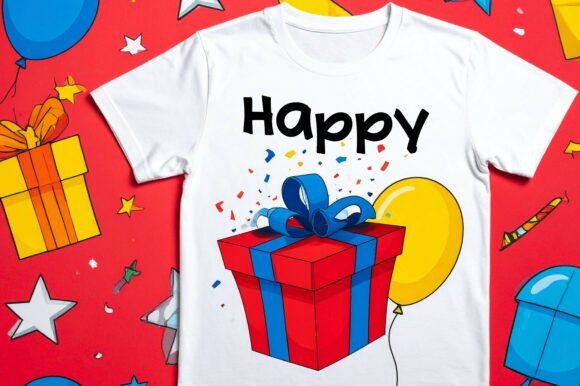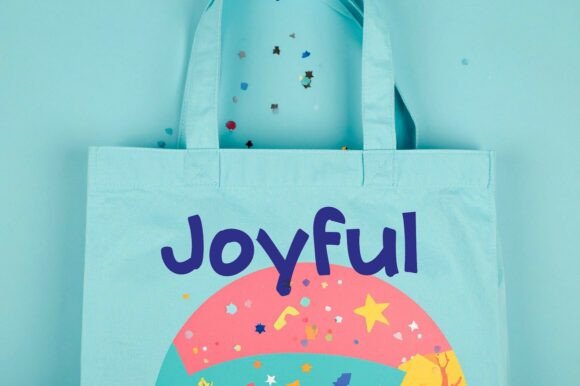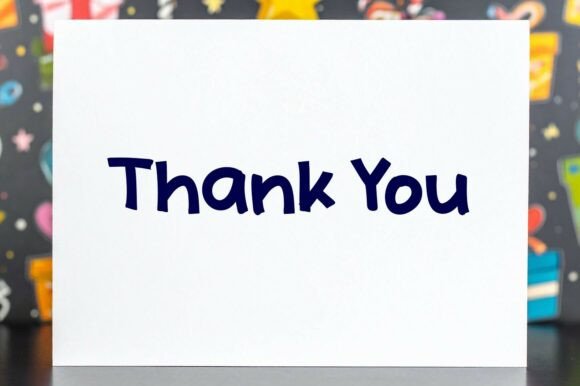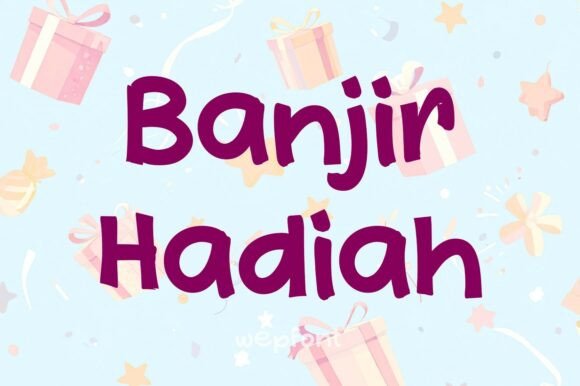
Banjir Hadiah Font: The Ultimate Celebration Companion for Designers and Crafters
Are you tired of using the same old fonts for your party invitations, gift tags, and festive designs? Look no further than the Banjir Hadiah font, a cheerful and festive handwritten display font that embodies the spirit of celebration and generosity. In this article, we’ll dive into the world of Banjir Hadiah, exploring its unique features, ideal applications, and how it can elevate your designs to the next level.
What is Banjir Hadiah Font?
Banjir Hadiah is a modern, handwritten display font that exudes excitement, joy, and abundance. Its bouncy, slightly irregular letterforms give it a playful, hand-drawn quality that’s perfect for creating festive and engaging visuals. The rounded and friendly strokes contribute to its approachable aesthetic, making it an excellent choice for designs that require a celebratory mood.
Key Features of Banjir Hadiah Font
- Cheerful and Festive: Banjir Hadiah is designed to evoke feelings of joy, excitement, and celebration, making it perfect for party invitations, holiday greetings, and special offers.
- Playful and Hand-Drawn: The font’s bouncy, irregular letterforms give it a playful, hand-drawn quality that’s sure to capture attention.
- Rounded and Friendly: The font’s rounded strokes contribute to its friendly and approachable aesthetic, making it perfect for designs that require a warm and welcoming feel.
- Versatile: Banjir Hadiah is suitable for a wide range of applications, from birthday invitations to social media graphics.
Ideal Applications for Banjir Hadiah Font
Banjir Hadiah is an incredibly versatile font that can be used in various design projects, including:
- Birthday Invitations: Create custom birthday invitations that set the tone for a fun and celebratory party.
- Holiday Greetings: Spread holiday cheer with Banjir Hadiah, perfect for Christmas, New Year’s, or any other festive occasion.
- Advertising for Special Offers: Create eye-catching ads for sales promotions, discounts, or limited-time offers.
- Packaging for Toys or Treats: Add a playful touch to your product packaging with Banjir Hadiah, perfect for kids’ products or gourmet treats.
- Festive Social Media Graphics: Create engaging social media graphics that capture attention and spread good cheer.
Why Choose Banjir Hadiah Font?
With Banjir Hadiah, you can:
- Capture Attention: The font’s playful and festive design is sure to grab attention and draw viewers in.
- Convey Happiness and Abundance: Banjir Hadiah embodies the spirit of celebration and generosity, making it perfect for designs that require a sense of joy and abundance.
- Elevate Your Designs: Add a touch of whimsy and fun to your designs with Banjir Hadiah, taking them to the next level.
Banjir Hadiah font is an excellent addition to any designer’s or crafter’s toolkit. Its unique features, versatility, and celebratory vibe make it perfect for a wide range of applications. Whether you’re designing party invitations, holiday greetings, or social media graphics, Banjir Hadiah is sure to bring a touch of joy and excitement to your projects. So why wait? Give Banjir Hadiah a try today and start creating engaging, festive, and fun designs that capture attention and spread good cheer!